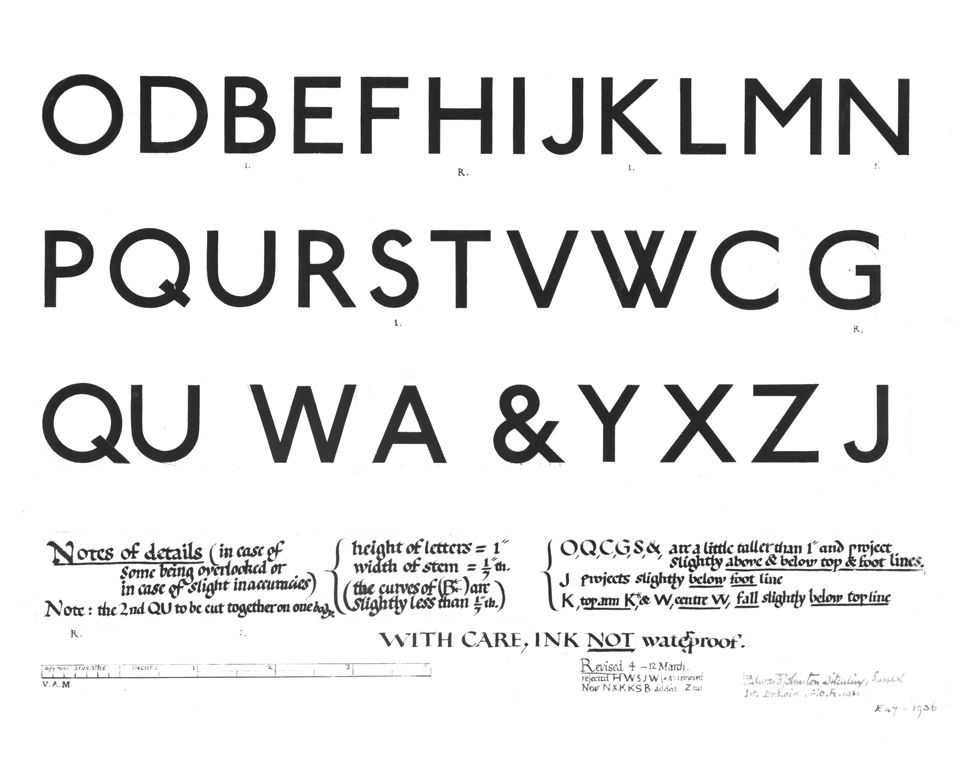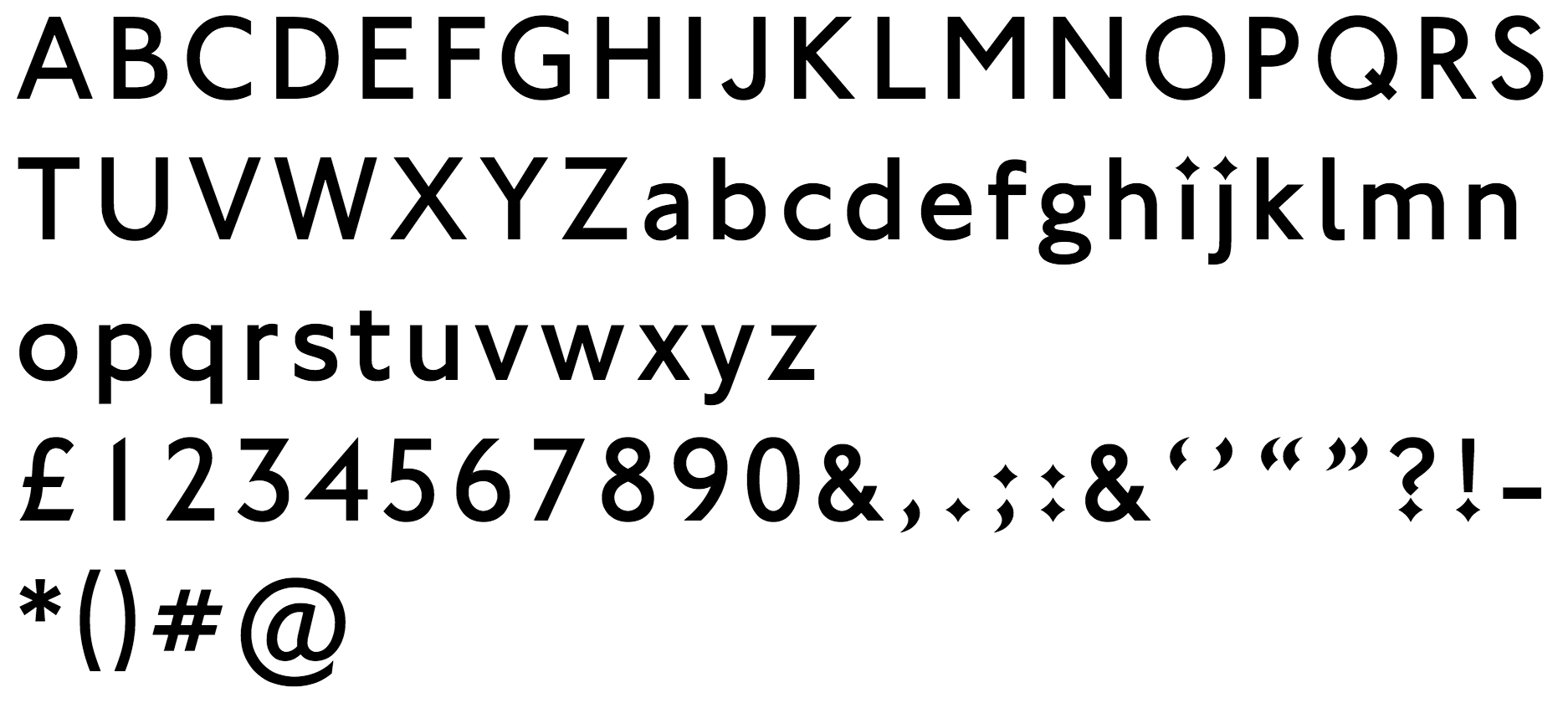
Johnston Underground Font
Johnston Underground Font - Web explore p22 underground designed by edward johnston, paul d. A sans serif typeface with 18. Web london's underground railway ordered a new typeface for its posters and signage from the calligrapher edward. Web initially released as p22 johnston underground in 1997, this faithful digital version of johnston, the legendary sans. Hunt, richard kegler at adobe fonts.
Web explore p22 underground designed by edward johnston, paul d. Web initially released as p22 johnston underground in 1997, this faithful digital version of johnston, the legendary sans. A sans serif typeface with 18. Hunt, richard kegler at adobe fonts. Web london's underground railway ordered a new typeface for its posters and signage from the calligrapher edward.
Web london's underground railway ordered a new typeface for its posters and signage from the calligrapher edward. Web explore p22 underground designed by edward johnston, paul d. A sans serif typeface with 18. Hunt, richard kegler at adobe fonts. Web initially released as p22 johnston underground in 1997, this faithful digital version of johnston, the legendary sans.
Web london's underground railway ordered a new typeface for its posters and signage from the calligrapher edward. Web initially released as p22 johnston underground in 1997, this faithful digital version of johnston, the legendary sans. A sans serif typeface with 18. Web explore p22 underground designed by edward johnston, paul d. Hunt, richard kegler at adobe fonts.
Hunt, richard kegler at adobe fonts. Web london's underground railway ordered a new typeface for its posters and signage from the calligrapher edward. A sans serif typeface with 18. Web initially released as p22 johnston underground in 1997, this faithful digital version of johnston, the legendary sans. Web explore p22 underground designed by edward johnston, paul d.
Hunt, richard kegler at adobe fonts. Web explore p22 underground designed by edward johnston, paul d. Web initially released as p22 johnston underground in 1997, this faithful digital version of johnston, the legendary sans. Web london's underground railway ordered a new typeface for its posters and signage from the calligrapher edward. A sans serif typeface with 18.
Web london's underground railway ordered a new typeface for its posters and signage from the calligrapher edward. Hunt, richard kegler at adobe fonts. A sans serif typeface with 18. Web explore p22 underground designed by edward johnston, paul d. Web initially released as p22 johnston underground in 1997, this faithful digital version of johnston, the legendary sans.
A sans serif typeface with 18. Hunt, richard kegler at adobe fonts. Web london's underground railway ordered a new typeface for its posters and signage from the calligrapher edward. Web initially released as p22 johnston underground in 1997, this faithful digital version of johnston, the legendary sans. Web explore p22 underground designed by edward johnston, paul d.
A sans serif typeface with 18. Web explore p22 underground designed by edward johnston, paul d. Web london's underground railway ordered a new typeface for its posters and signage from the calligrapher edward. Web initially released as p22 johnston underground in 1997, this faithful digital version of johnston, the legendary sans. Hunt, richard kegler at adobe fonts.
Web london's underground railway ordered a new typeface for its posters and signage from the calligrapher edward. Web initially released as p22 johnston underground in 1997, this faithful digital version of johnston, the legendary sans. Web explore p22 underground designed by edward johnston, paul d. A sans serif typeface with 18. Hunt, richard kegler at adobe fonts.
Web london's underground railway ordered a new typeface for its posters and signage from the calligrapher edward. Hunt, richard kegler at adobe fonts. Web initially released as p22 johnston underground in 1997, this faithful digital version of johnston, the legendary sans. A sans serif typeface with 18. Web explore p22 underground designed by edward johnston, paul d.
Web london's underground railway ordered a new typeface for its posters and signage from the calligrapher edward. Hunt, richard kegler at adobe fonts. A sans serif typeface with 18. Web initially released as p22 johnston underground in 1997, this faithful digital version of johnston, the legendary sans. Web explore p22 underground designed by edward johnston, paul d.
Web Explore P22 Underground Designed By Edward Johnston, Paul D.
A sans serif typeface with 18. Hunt, richard kegler at adobe fonts. Web london's underground railway ordered a new typeface for its posters and signage from the calligrapher edward. Web initially released as p22 johnston underground in 1997, this faithful digital version of johnston, the legendary sans.